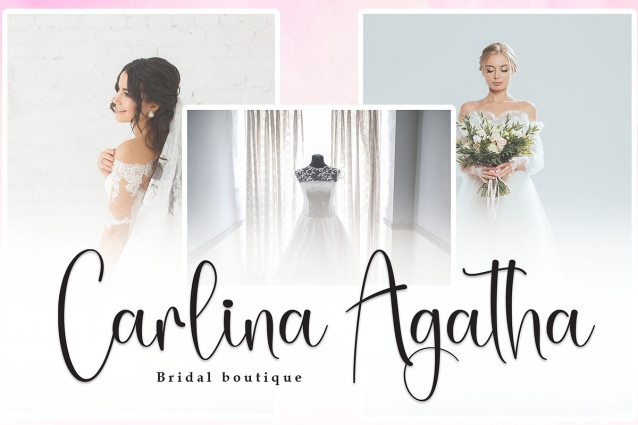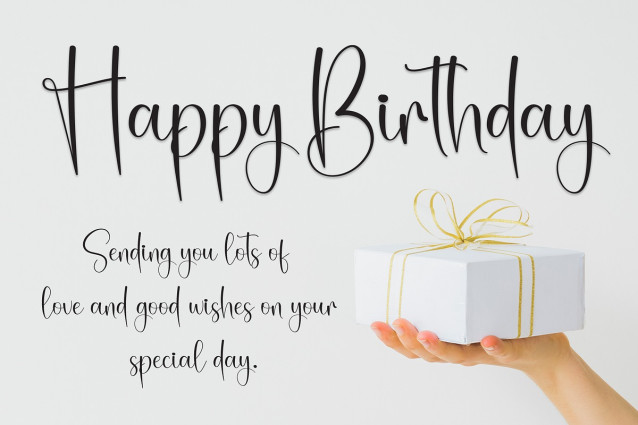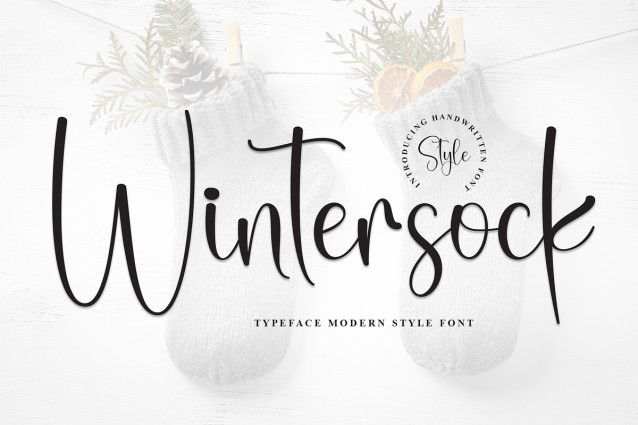
Wintersock Script Font
Wintersock Script Font is a contemporary typeface that effortlessly blends modern aesthetics with timeless appeal. With clean lines and a stylish edge, this font brings a touch of sophistication to your design projects. Whether you’re working on branding, editorial design, or digital interfaces, Wintersock’s versatility and modern charm make it a standout choice. Elevate your typography with Wintersock and infuse a fresh, current vibe into your creations.